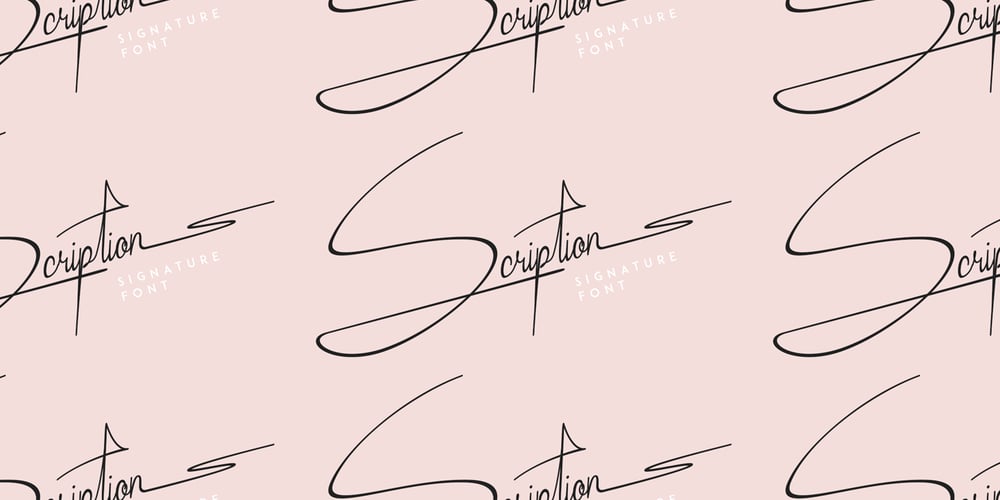
Scriptior Font Family was designed by Vladimir Fedotov, Plamen Petrov and published by VP Creative Shop. Scriptior contains 2 styles and family package options. Introducing Scriptior, an enchanting organic signature script that adds a touch of elegance to your designs and projects. With its regular and italic versions, Mythos offers a versatile range of possibilities for expressing your creativity.Scriptior is crafted with meticulous attention to detail, capturing the fluidity and grace of hand-drawn signatures. Its organic strokes flow seamlessly, creating a harmonious balance between sophistication and approachability.